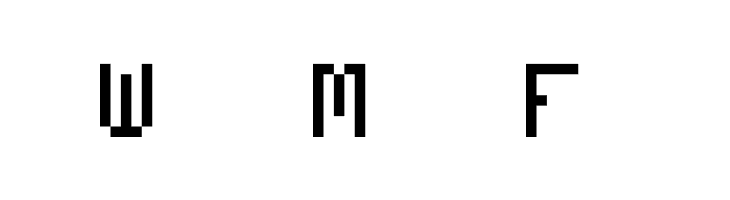
Amaya Technical Bold Regular Font
A geometric, technical font with a modern, grid-like structure.
Digital Readout Upright Font
A segmented, digital-style font inspired by classic LED displays.
RussoSansBold Font
A bold, modern sans-serif font with a geometric structure.
Coelacanth Subheading Font
A classic serif font with elegant, sharp serifs and a traditional yet modern appeal.
Digital Readout Thick Font
A bold, digital-inspired font with a segmented, geometric design.
SF Laundromatic Font
A geometric, modern font with a blocky and futuristic design.
TTTedsMediumDEMO Font
A modern, bold sans-serif font with clean lines and excellent legibility.
Digital Readout ExpUpright Font
A segmented, digital-inspired font mimicking LED displays.
Coelacanth Caption Semibold Font
A classic serif font with a semi-bold weight, offering elegance and readability.
Keyboard KeysBT Bold Font
A bold, boxed font mimicking keyboard keys with a modern digital aesthetic.
Pointy Iron Fence Font
A decorative font with sharp, iron-like elements and intricate design.
Coelacanth Font
A classic serif font with a hand-crafted, elegant style.
Coelacanth Subheading Bold Font
A bold serif font with a classic and slightly whimsical style.
Coelacanth Subheading Semibold Font
A classic serif font with elegant curves and a semi-bold weight.
Logger Regular Font
A rugged, textured font with a hand-carved, rustic appearance.
TTCottonsLight-DEMO Font
A modern, light sans-serif font with tall, narrow characters and minimal contrast.
Coelacanth Caption Font
A classic serif font with an organic, historical feel and elegant serifs.
Coelacanth Caption Bold Font
A bold, serif font with a hand-crafted, distinctive style.
Coelacanth Display Semibold Font
A classic serif font with semi-bold weight and elegant, flared serifs.
Keyboard KeysHo Hollow Font